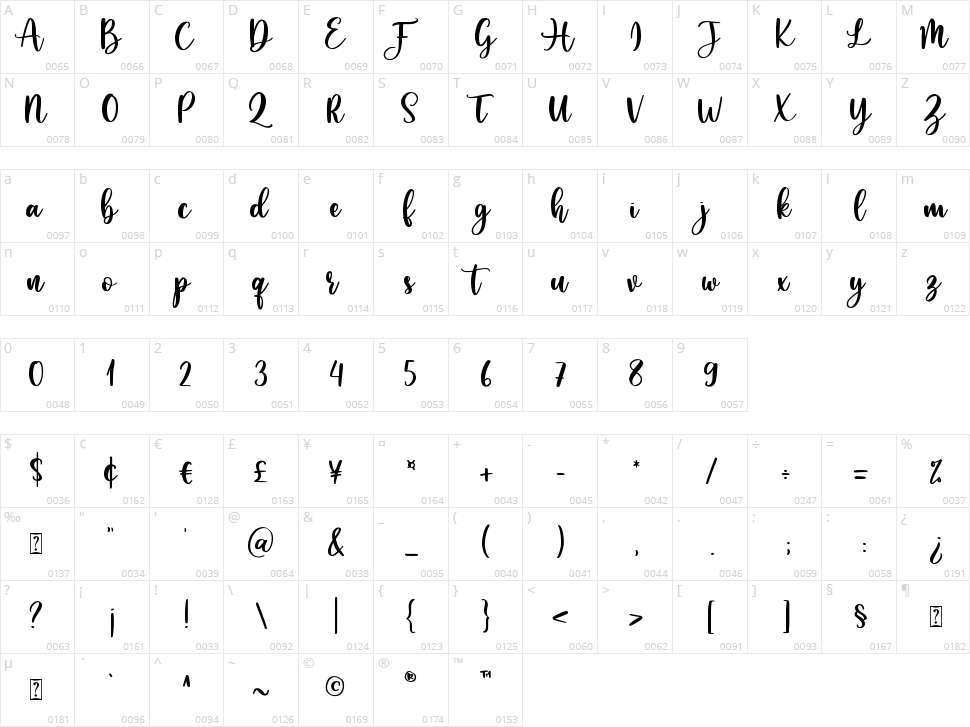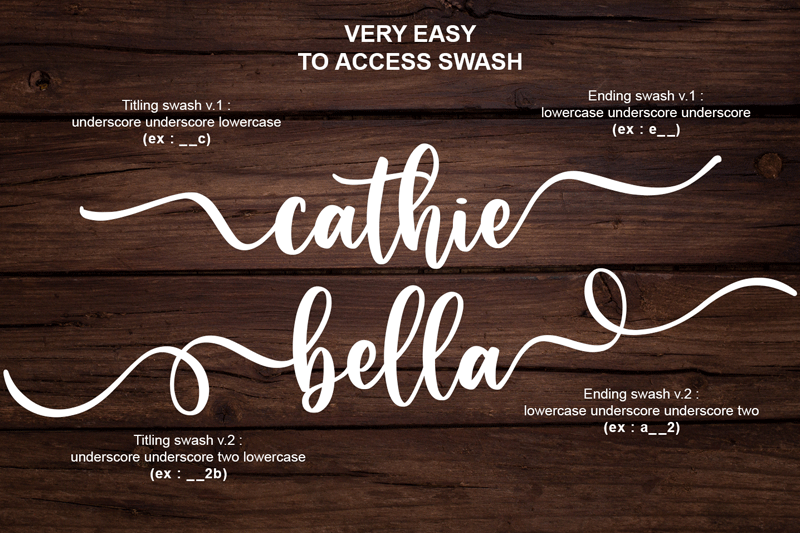
Caristha
CARISTHA
-bouncy script-
Caristha is great for branding, wedding card, wedding invitation, logo, quotes, and more
it comes with 2 styles of swash.
Very easy to access ( You can see on presentation pictures)
Designer Name: Abo Daniel Studio